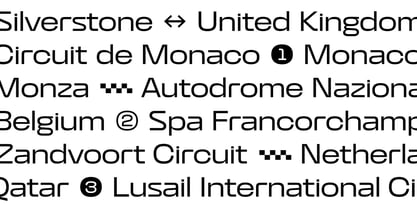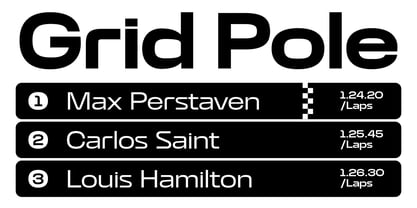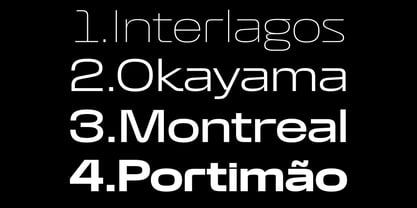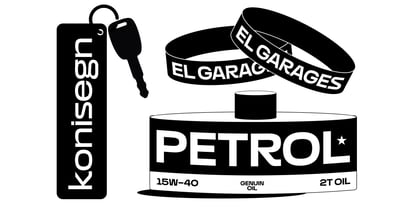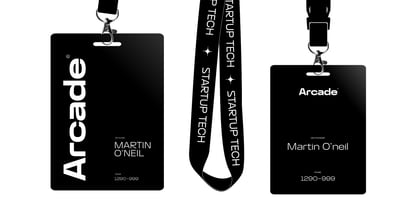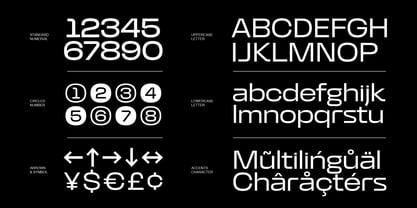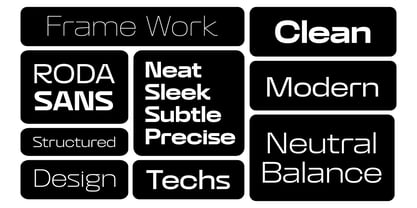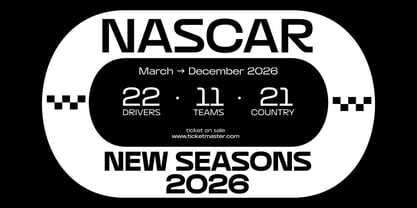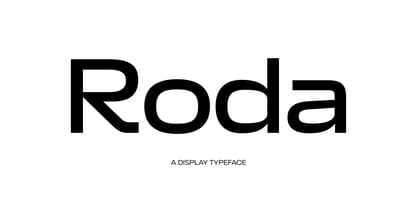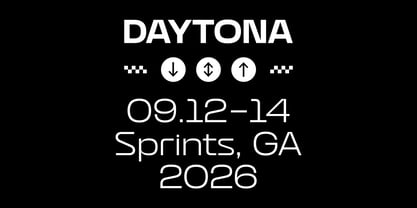
Roda Sans
by Typeberry
The Roda Sans Font Family was designed by Annas Alam Yahya, Bagus Arya Kirana, Michola Putra Siswandi and published by Typeberry. Roda Sans contains 7 styles and family package options. More about this family
Roda is a modern display sans serif that blends futuristic precision with geometric simplicity. Designed with clean curves, open counters, and sleek proportions, Roda delivers a distinctive contemporary look that feels both innovative and highly versatile.
Featuring 7 carefully crafted weights, Roda offers a wide range of creative possibilities—from elegant minimalist branding to bold editorial headlines. Its refined letterforms maintain excellent readability while providing a strong visual identity, making it suitable for both digital and print applications.
Inspired by modern technology, automotive aesthetics, and contemporary graphic design, Roda excels in projects that demand clarity, sophistication, and forward-thinking style.
Designers: Annas Alam Yahya, Bagus Arya Kirana, Michola Putra Siswandi
Foundry: Typeberry